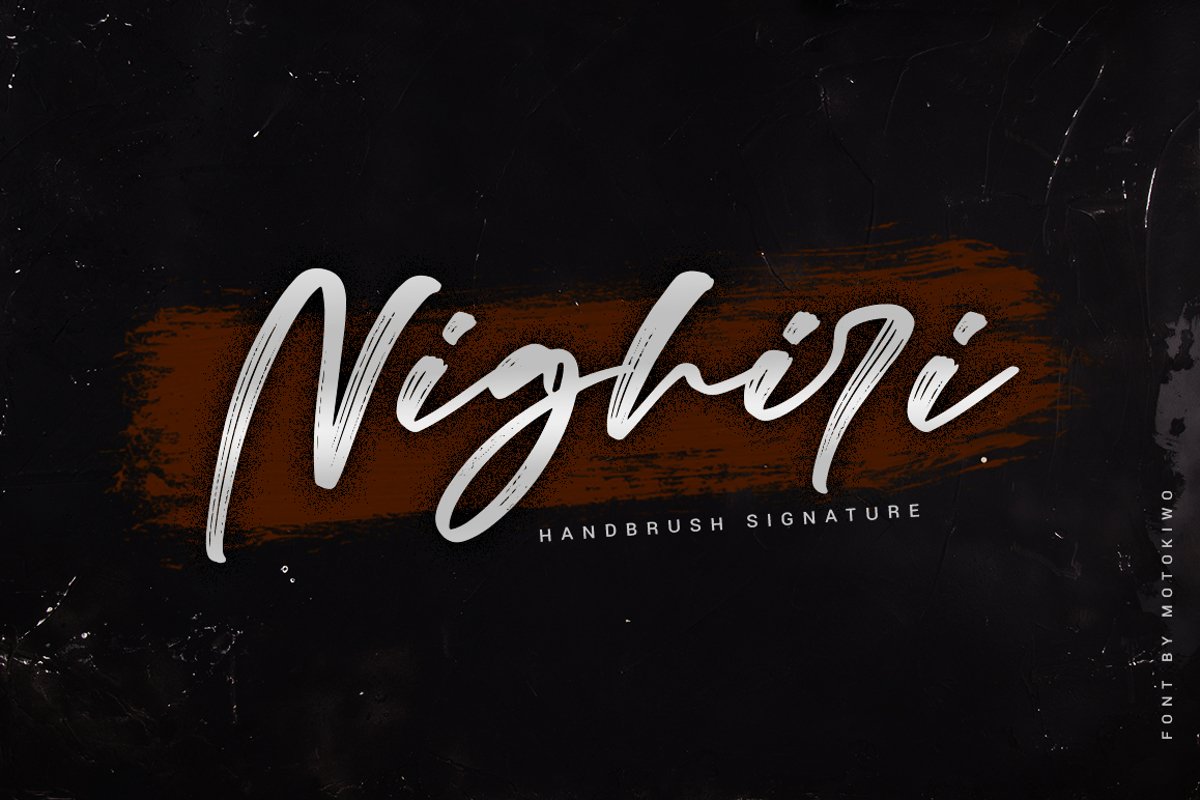
Nighiri
Nighiri, a classy and elegant handbrush signature typeface that will shine for multipurpose project. Nighiri very recommended for poster, logo, headline, quote, wedding, branding, fashion, or anything else you want. It's good for display or just a text.